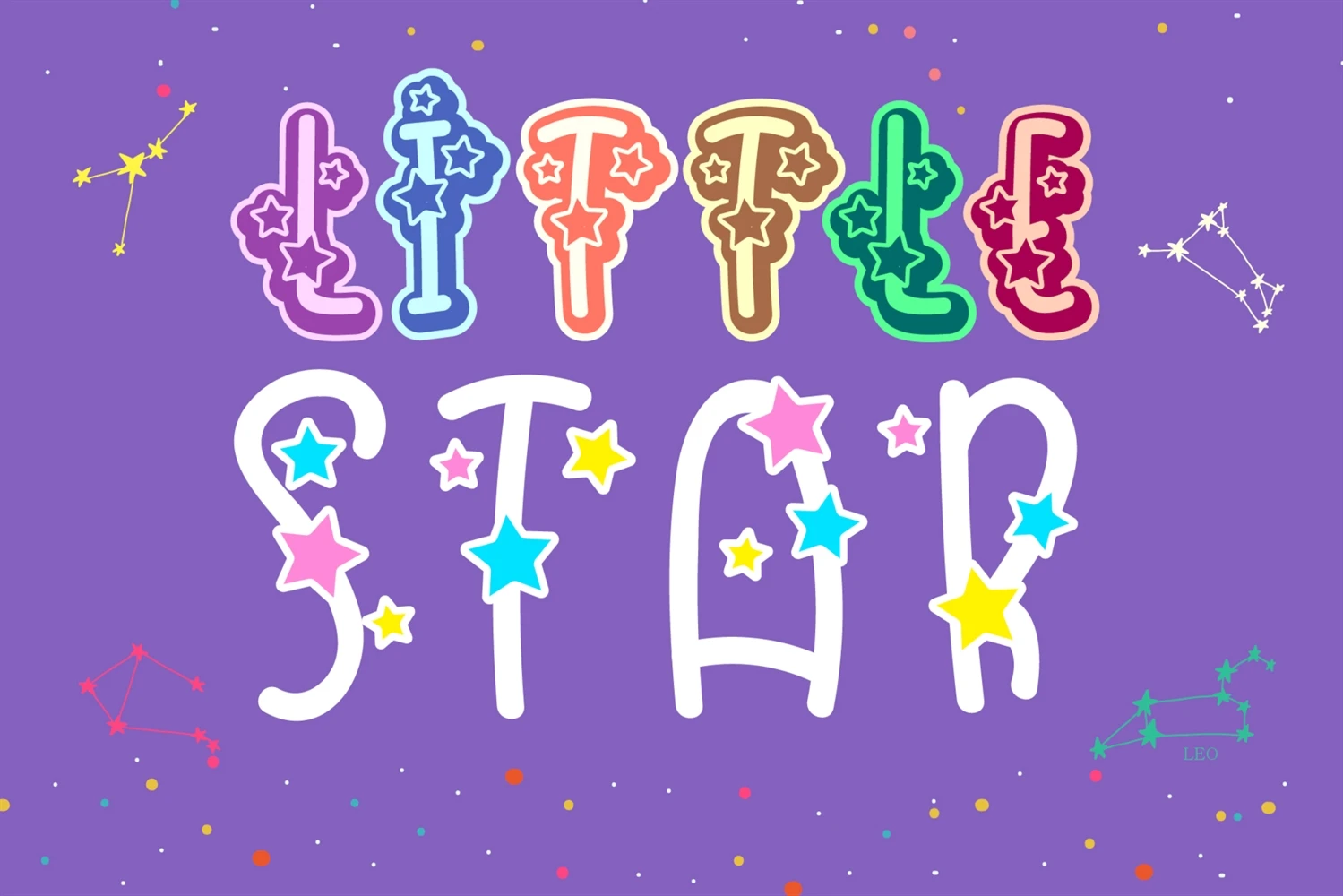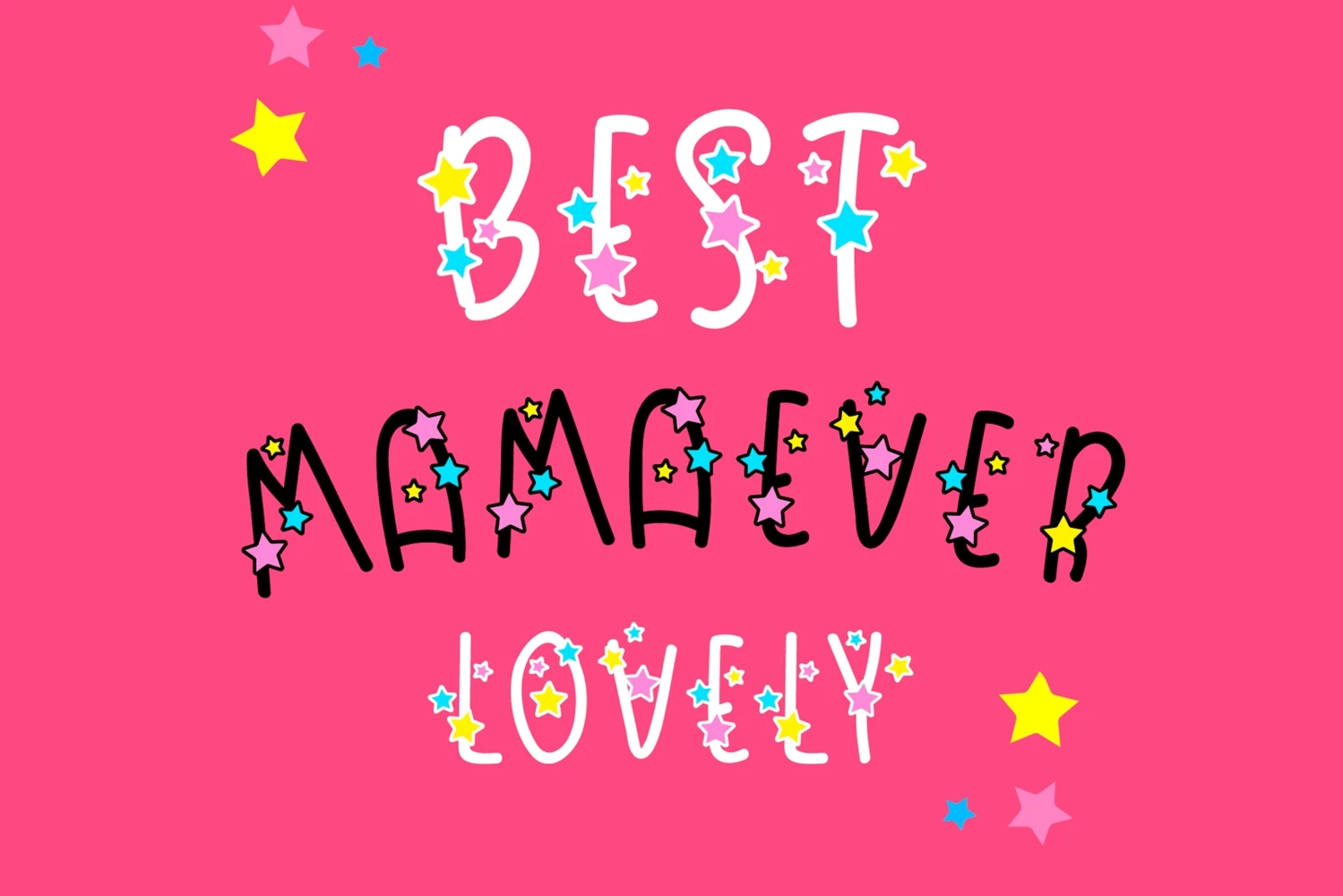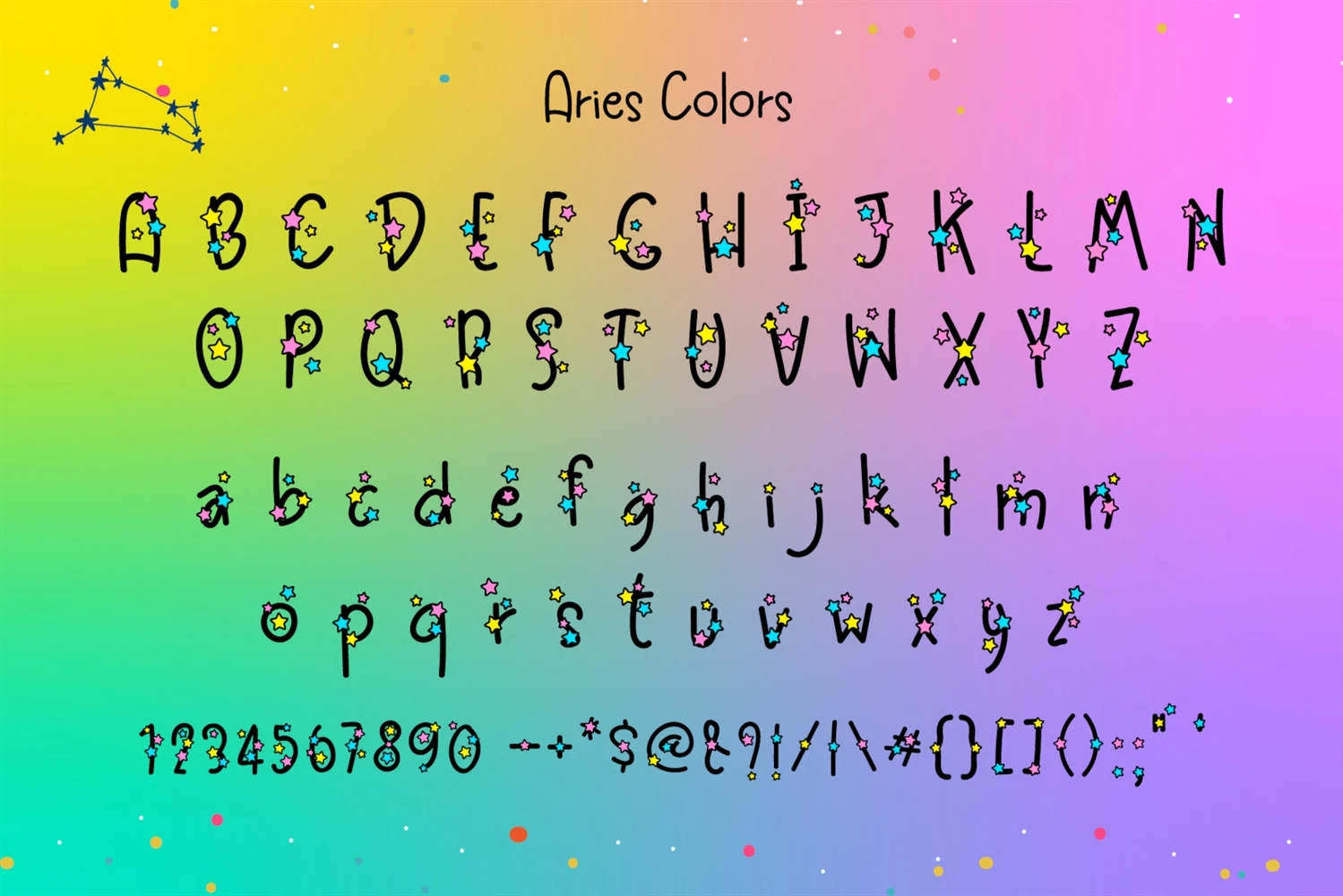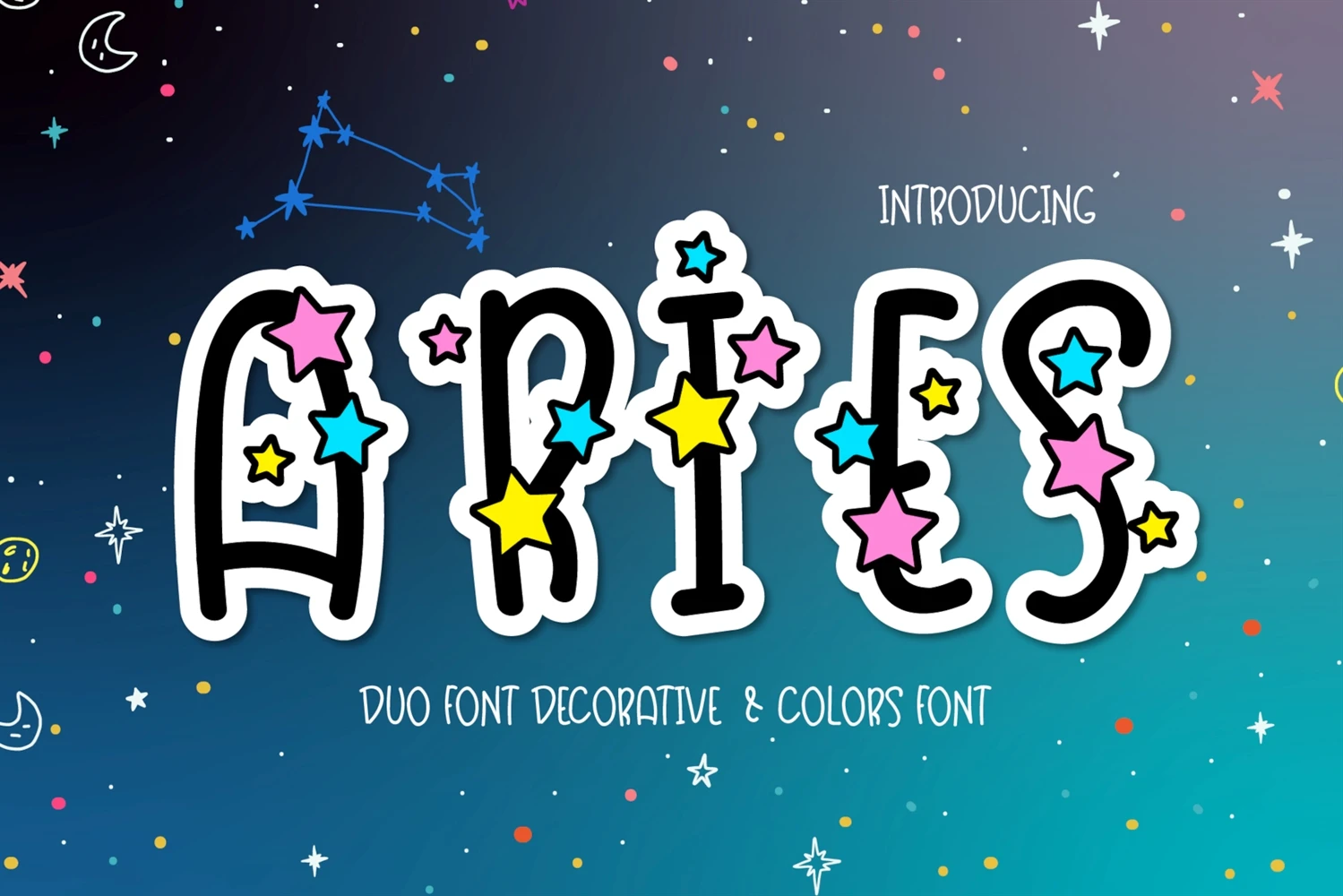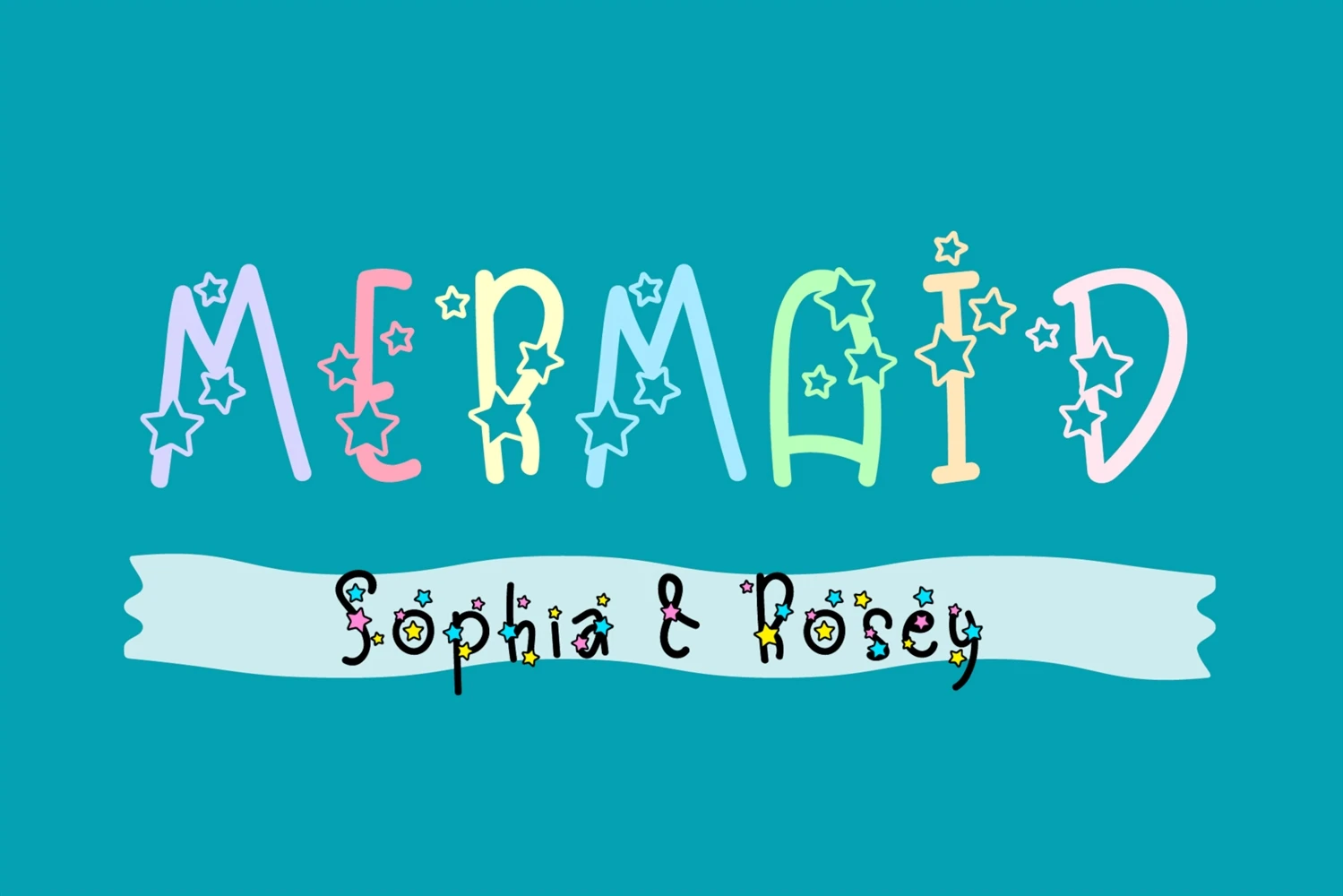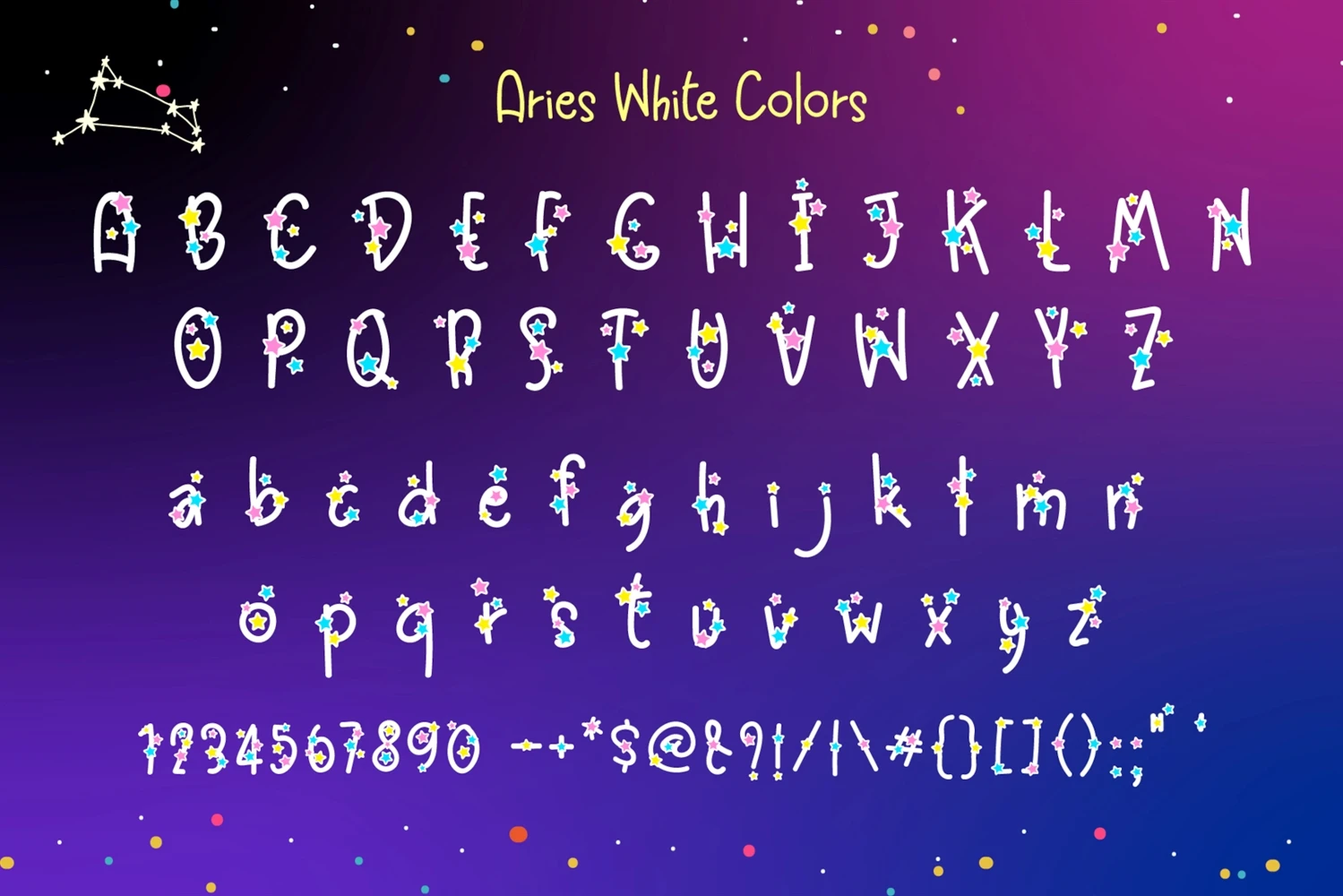
Aries is a fun decorative and color font. You can use it to create unique designs, book covers, birthday cards, greeting cards, as well as many other creations that require a cute, friendly vibe.